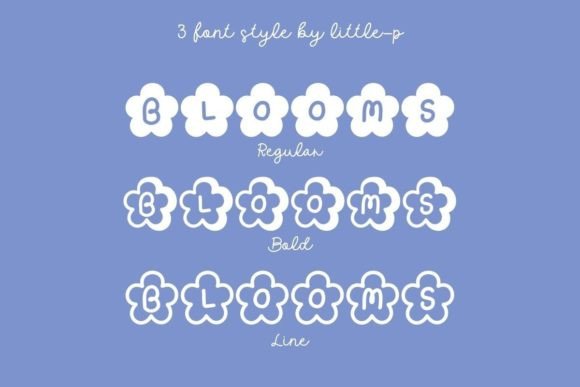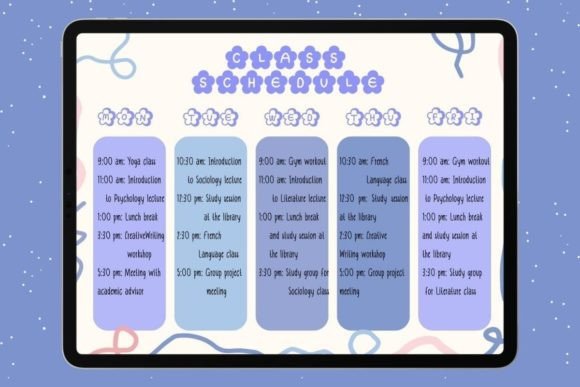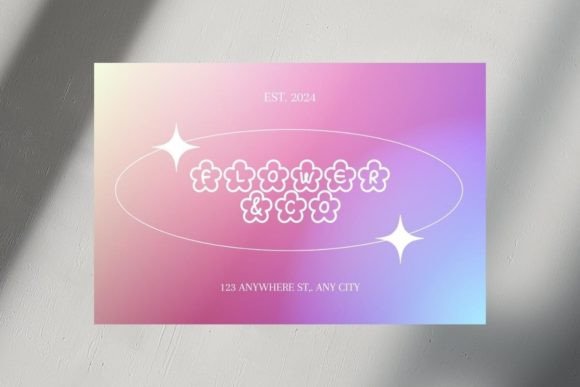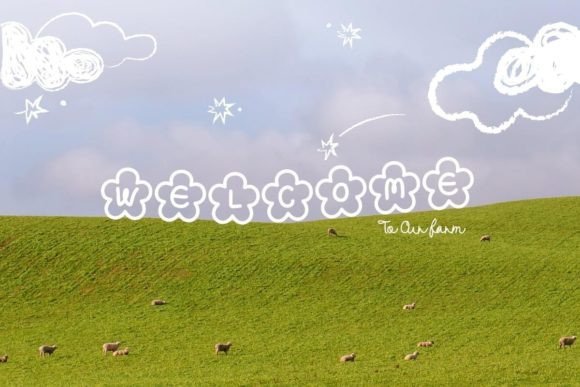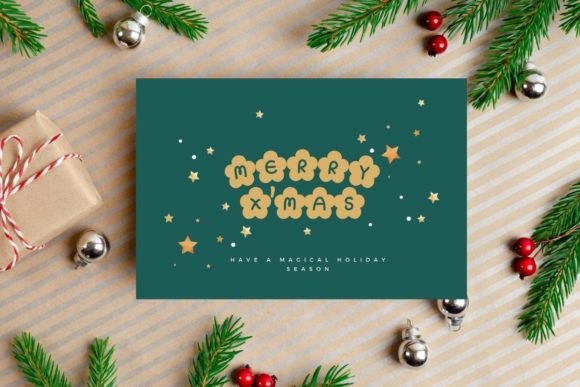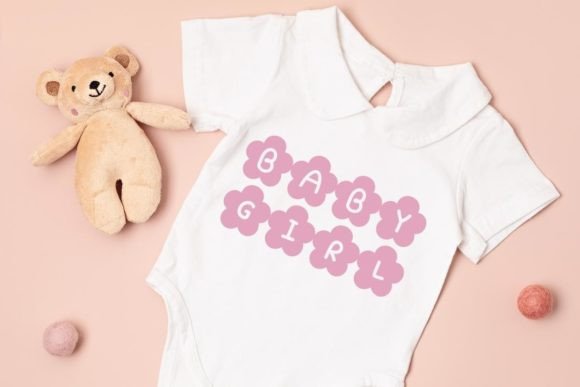
Introducing Blooms Font: A Delightful Twist for Your Designs
Are you tired of using the same old fonts for your designs? Look no further than Blooms Font, a unique and captivating decorative font that adds a touch of playfulness to any project. With its flower-shaped elements and hand-written charm, Blooms Font is perfect for designers and crafters looking to bring a sense of charm and individuality to their work.
Three Versatile Styles to Meet Your Design Needs
Blooms Font offers three versatile styles to meet your design needs: Regular, Line, and Bold. Each style has its own unique characteristics, allowing you to choose the one that best suits your project. Whether you’re creating a captivating brand identity, designing eye-catching merchandise, crafting trendy T-shirt graphics, creating fun stickers, enhancing your logo and packaging, or unleashing your creativity in any other way, Blooms Font has got you covered.
The Regular Font: A Classic with a Twist
The regular font is perfect for designs that require a touch of elegance and sophistication. With its delicate flower-shaped elements, this style adds a whimsical touch to any project. Use it to create beautiful brand identities, logos, and packaging that stand out from the crowd.
The Line Font: A Modern and Edgy Option
The line font is perfect for designs that require a modern and edgy look. This style features a unique line-style design that adds a touch of boldness to any project. Use it to create trendy T-shirt graphics, stickers, and other merchandise that appeal to a younger audience.
The Bold Font: A Statement-Maker
The bold font is perfect for designs that require a statement-maker. With its thick and bold lines, this style adds a touch of confidence and authority to any project. Use it to create eye-catching logos, packaging, and branding that demands attention.
A Cute Style with Hand-Written Charm
Blooms Font’s cute style and hand-written charm make it a truly unique and captivating decorative font. The font’s hand-written elements add a touch of warmth and personality to any project, making it perfect for designs that require a personal touch. Whether you’re creating a brand identity, merchandise, or packaging, Blooms Font’s cute style is sure to delight your audience.
With Blooms Font, the design possibilities are endless. Use it to create:
- Captivating brand identities that stand out from the crowd
- Eye-catching merchandise that appeals to a younger audience
- Trendy T-shirt graphics that make a statement
- Fun stickers that add a touch of playfulness to any project
- Enhance your logo and packaging with a unique and captivating font
Why Choose Blooms Font?
So why choose Blooms Font for your designs? Here are just a few reasons:
- Unique and captivating design with flower-shaped elements
- Three versatile styles to meet your design needs
- Cute style and hand-written charm add a touch of playfulness to any project
- Perfect for designers and crafters looking to bring a sense of charm and individuality to their work
Get Ready to Bloom with Blooms Font